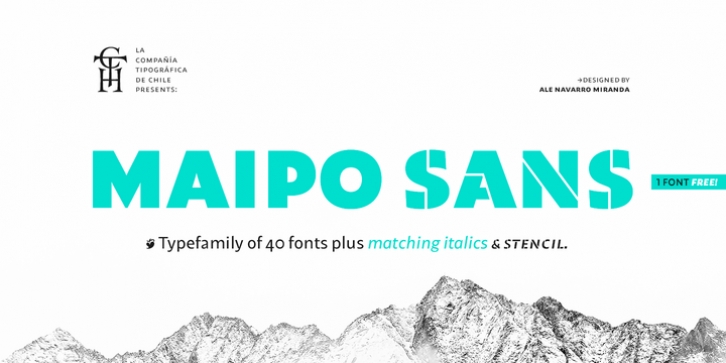
Publisher: Compañía Tipográfica de Chile
Maipo Sans is a modern typeface inspired by the mountain landscape of Cajón del Maipo, Chile. Its forms are inspired by the first sans serif European Humanist fonts of the twentieth century along with a touch of reverse contrast. This typeface is specially designed for projects using extensive text blocks and striking ads. Maipo Sans puts a careful focus in the interpolation; therefore it gains expressiveness as its weight increases. That is why it has moderate and functional forms in its thinner weights, while in his heavier variants it gains freshness and sympathy. To make it more complete, this family has a complete Stencil Version with a lot of character and power. Maipos Sans is composed by 40 styles, 826 glyphs and Small Caps. Besides, it has powerful OpenType features for each style, including stylistic sets, extended language support, ligatures, contextual alternates, lining figures, oldstyle figures, arrows, fractions, superscripts, subscripts and many more.